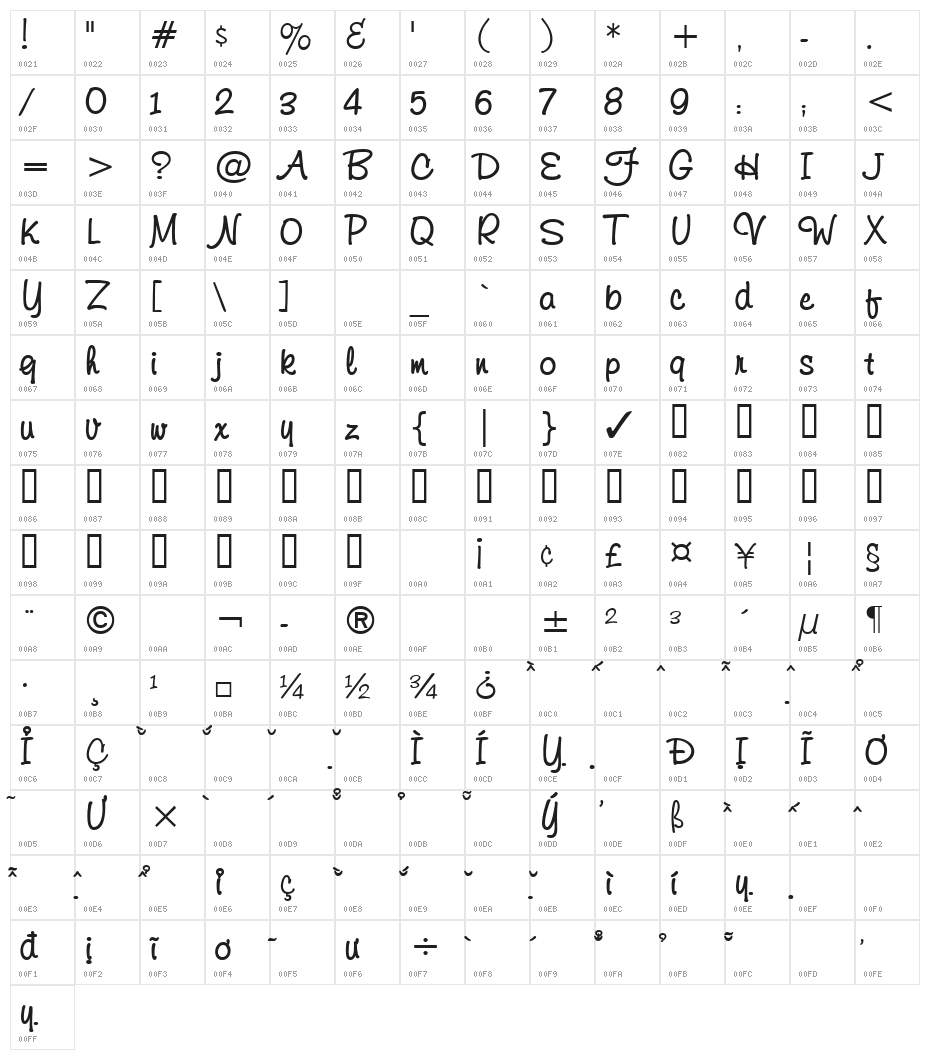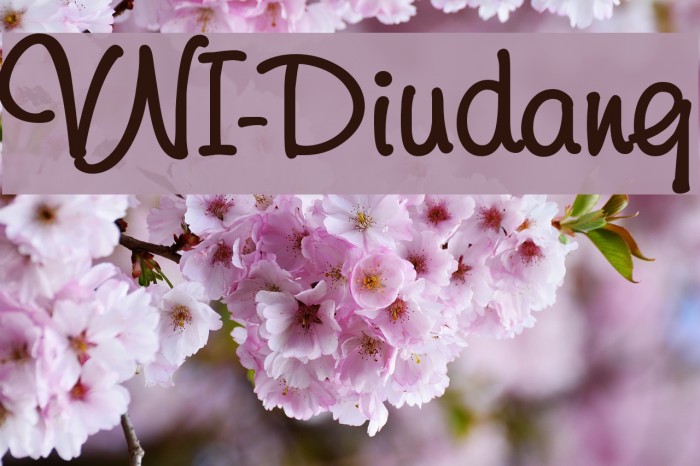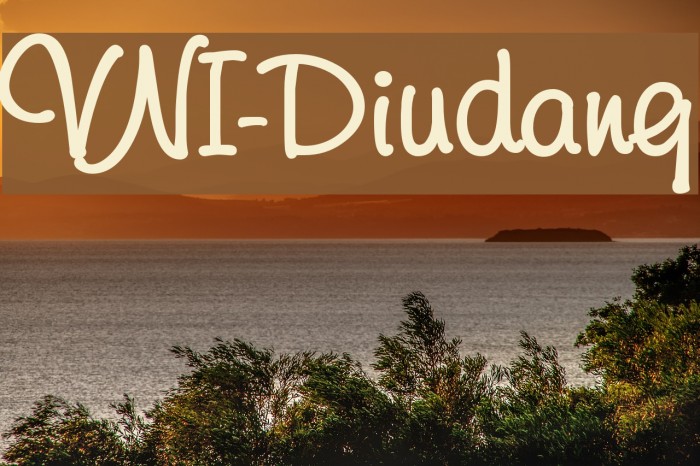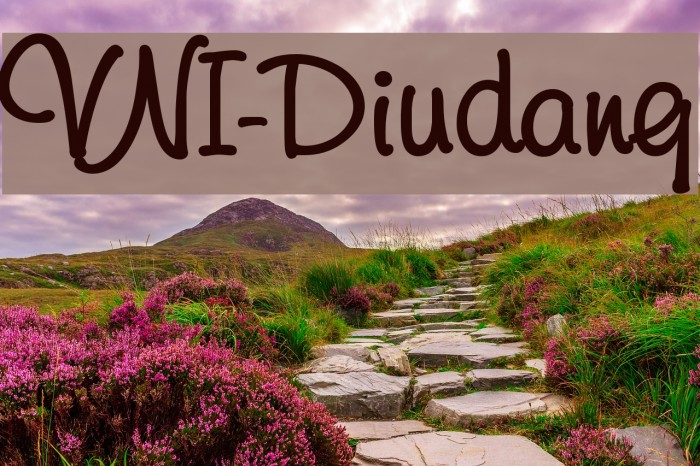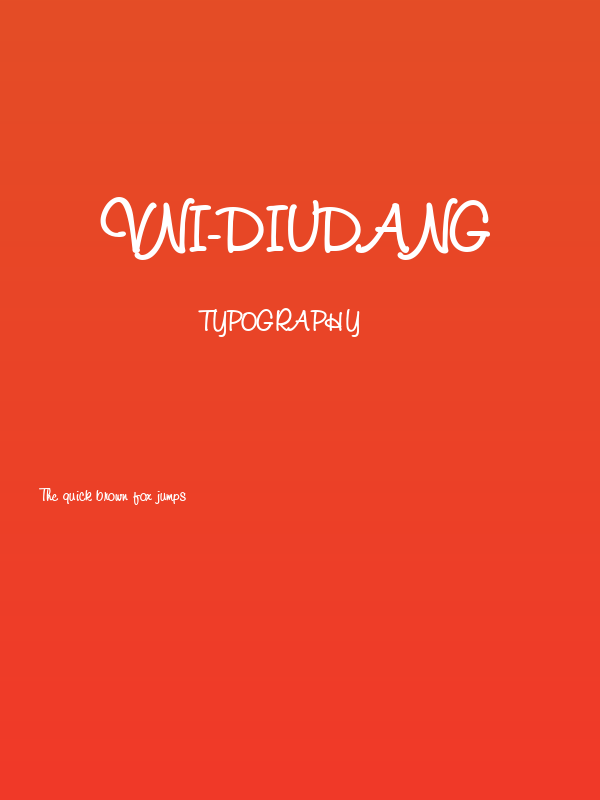
VNI-Diudang Font
VNI-Diudang Description
This font features a playful and dynamic script style, characterized by its fluid and connected letterforms. The uppercase letters are bold and slightly slanted, giving a sense of movement and energy. The lowercase letters maintain a consistent flow, with rounded edges and a casual, handwritten appearance. Numbers are bold and clear, matching the overall style of the alphabet. Special characters are well-integrated, maintaining the same playful and energetic feel. The font's overall design is both approachable and stylish, making it suitable for a variety of creative applications.
| Overall Style | Playful, Energetic |